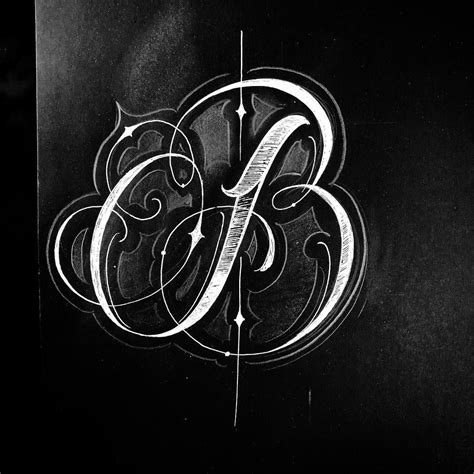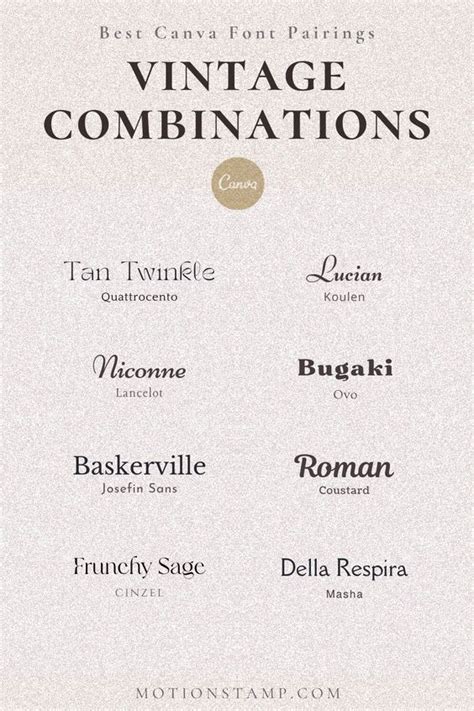
Best Letter Fonts for Instagram Posts
Readers, have you ever scrolled through Instagram and noticed how some posts capture your attention more than others? It's not just the content, but also the visual elements that draw you in. One crucial element is the font choice. Choosing the right letter font can make your Instagram posts stand out, enhance readability, and better convey your message.
As experienced content creators and SEO experts, we've analyzed countless Instagram posts to understand the impact of letter fonts. We've compiled the best letter fonts for Instagram Posts to elevate your visual appeal and boost engagement.
Why Choose the Right Font for Instagram?
Selecting the ideal font for your Instagram posts is a strategic decision with significant implications. The right font can enhance your brand image, resonate with your target audience, and even influence their perception of your content. Here's why font selection matters:
Brand Consistency
Consistency is key to building a recognizable brand. Using a consistent font across your Instagram posts helps establish your brand identity and makes you easily identifiable. Imagine browsing your favorite brands on Instagram and seeing a different font for each post; it would feel confusing and disjointed. A cohesive font style reinforces your brand's visual identity and strengthens your brand awareness.
Readability and Engagement
Think about reading a post with a fancy, decorative font. It might look visually appealing initially, but it's likely to hinder readability. A clear and legible font ensures your message is easily understood and absorbed by your audience. When your content is easy to read, people are more likely to engage with it, leading to higher likes, comments, and shares.
Audience Resonance
Your Instagram audience is unique, and their preferences influence their perception of your content. Some fonts might resonate with a younger audience, while others appeal to a more professional demographic. By understanding your audience's preferences, you can choose fonts that appeal to them and enhance their connection with your brand.
Emotion and Tone
Different fonts evoke distinct emotions and tones. A sleek, modern font might convey professionalism and sophistication, while a playful, rounded font suggests fun and informality. The font you choose should reflect the overall tone and message of your content, ensuring it aligns with your brand identity.
Top Letter Fonts for Instagram Posts
Now that you understand the importance of choosing the right font, let's explore some of the best letter fonts for Instagram posts. While many great options are available, we've narrowed it down to those that strike a balance between visual appeal, readability, and versatility:
Serif Fonts
Serif fonts are characterized by small decorative strokes, called serifs, at the ends of the letterforms. They often convey a timeless, classic feel and are excellent for adding a touch of elegance to your posts.
Times New Roman
A classic and widely recognized serif font, Times New Roman provides a clean and professional look. It's a reliable choice for posting quotes, reviews, and any content requiring a touch of sophistication.
Garamond
Garamond is a stylish serif font with a more elegant and sophisticated feel than Times New Roman. It's well-suited for fashion and beauty brands, creating an air of refinement and sophistication in their Instagram posts.
Sans-Serif Fonts
Sans-serif fonts lack the decorative strokes found in serif fonts, resulting in a clean, modern, and often minimalist aesthetic. They are highly versatile and suitable for various Instagram posts.
Arial
A ubiquitous sans-serif font, Arial is known for its simplicity and clarity. It's a great choice for posts containing text-heavy information, such as product descriptions or behind-the-scenes stories.
Helvetica
Another popular sans-serif font, Helvetica is often associated with modern design. It's highly versatile and can be used for various purposes, from showcasing minimalist product photos to sharing edgy quotes.
Script Fonts
Script fonts mimic handwritten cursive and offer a personal touch. They can add a touch of elegance, whimsy, or even a vintage feel to your posts.
Brush Script
A popular script font, Brush Script adds a touch of artistic flair to your Instagram posts. It's ideal for creating quotes or captions that feel handwritten and personal.
Pacifico
Pacifico is a playful script font that adds a touch of whimsy and personality to your posts. It's perfect for casual brands and those who want to convey a fun and friendly vibe.
Display Fonts
Display fonts are designed to catch the eye. They are bold and visually striking and often used for headlines and titles. These fonts can make your Instagram posts stand out and grab attention.
Impact
Impact is a bold and impactful display font that exudes confidence and makes a statement. It's perfect for creating attention-grabbing headlines or announcements on your Instagram feed.
Bebas Neue
Bebas Neue is a modern and geometric display font that adds a touch of boldness and elegance to your posts. It's versatile and can be used for various purposes, from showcasing product launches to sharing inspirational quotes.
Using Letter Fonts on Instagram: A Practical Guide
Now that we've covered the best letter fonts for Instagram posts, here's a practical guide to help you incorporate them into your social media strategy:
Instagram's Built-In Fonts
Instagram offers a selection of built-in fonts directly within the app. While these fonts are limited, they are easy to use and a good starting point for experimenting with font styles.
Third-Party Apps
If you want more font options, several third-party apps allow you to add various fonts to your Instagram posts. These apps provide a wide range of fonts, including stylish script fonts, bold display fonts, and unique decorative fonts.
Font Combinations
Don't limit yourself to using only one font per post. Experiment with combining different fonts to create visual interest and enhance your content's readability.
Accessibility
Always consider accessibility when choosing fonts. Opt for fonts that are easy to read, especially for users with visual impairments. Avoid using fonts that are too small, too decorative, or too difficult to distinguish.
Font Combinations for Instagram
Creating successful font combinations for your Instagram posts is an art form. It involves balancing aesthetics, readability, and brand consistency. Here's a breakdown of factors to consider when combining fonts:
Contrast and Harmony
Choosing fonts with contrasting styles can create visual interest and make your post stand out. For example, pairing a sans-serif font with a script font can create a unique and visually appealing combination. However, ensure the fonts complement each other and don't clash visually.
Hierarchy and Emphasis
Use different font sizes and weights to create a hierarchy within your post. A larger, bolder font can be used for headlines or titles, while a smaller, lighter font can be used for body text. This approach enhances readability and guides the reader's eye through the content.
Brand Consistency
While experimenting with font combinations is encouraged, remember to maintain brand consistency. Use a limited number of fonts that align with your brand image and ensure they are used consistently across your Instagram posts.
Testing and Refining
Don't be afraid to experiment with different font combinations. Test out various options and see what resonates best with your audience. Analyze the performance of your posts, including engagement metrics, to understand which font combinations are most effective.
Best Letter Fonts for Instagram Stories
Instagram Stories offer a dynamic and engaging way to connect with your audience. Choosing the right font can enhance the visual appeal of your stories and ensure your message is delivered effectively.
Simple and Readable Fonts
Stories often involve short, concise messages. Opt for simple and readable fonts that are easy to scan and digest. Sans-serif fonts like Arial and Helvetica are excellent choices for Instagram Stories, ensuring your message is easily understood.
Bold and Eye-Catching Fonts
For creating attention-grabbing headlines or emphasizing key points, consider using bold and eye-catching fonts. Display fonts like Impact and Bebas Neue can add a touch of boldness and make your stories stand out.
Playful Script Fonts
To add a touch of personality or create a handwritten look, explore playful script fonts like Brush Script or Pacifico. These fonts can add a whimsical feel to your Stories and enhance their visual charm.
Font Combinations for Stories
Experiment with font combinations to create visual interest and enhance readability. For example, you could use a bold sans-serif font for headlines and a lighter script font for body text. This approach adds visual variety while maintaining a cohesive look.
FAQs about Best Letter Fonts for Instagram Posts
What font should I use for my Instagram bio?
Choosing the right font for your Instagram bio is important as it's the first impression you make on your visitors. While Instagram doesn't allow for custom fonts within the bio, you can still create a visually appealing bio using font combinations. Try using a combination of a bold, sans-serif font for your name and a more subtle sans-serif font for your bio description. You can also use emojis to add visual interest and break up the text.
What are the best fonts for Instagram captions?
Captions are an opportunity to add personality and context to your Instagram posts. The best font for your captions depends on your brand and the message you want to convey. For a more casual and friendly feel, try using a script font like Brush Script. If you want a cleaner, more professional look, consider using a sans-serif font like Arial or Helvetica. Experiment with different fonts and see which ones best reflect your brand's personality.
How can I add custom fonts to my Instagram posts?
While Instagram doesn't have a built-in feature to add custom fonts, you can achieve this using third-party apps. There are several apps available that allow you to add custom fonts to your Instagram posts, including Canva, Over, and Unfold. These apps offer a wide range of fonts, allowing you to create unique and visually appealing designs for your Instagram posts.
Choosing the right letter font can significantly impact the success of your Instagram posts. By understanding the different font types, exploring popular options, and experimenting with font combinations, you can create visually appealing and engaging content that resonates with your audience and elevates your brand image. So, explore the font world, find your perfect font combination, and watch your Instagram engagement soar! And if you want to delve deeper into SEO and AI content creation, check out our other informative articles on [Link to your other articles].